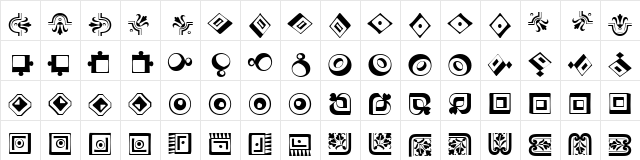
Caravan LH Four Regular
Design Context for Caravan LH Four
Caravan LH Four is a composed and adaptable typeface that performs quietly and consistently across a wide range of design contexts.